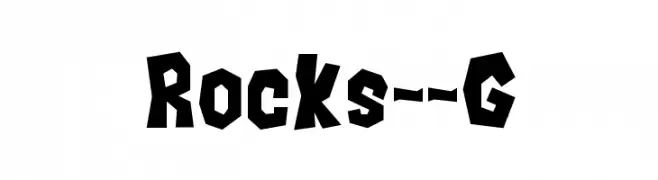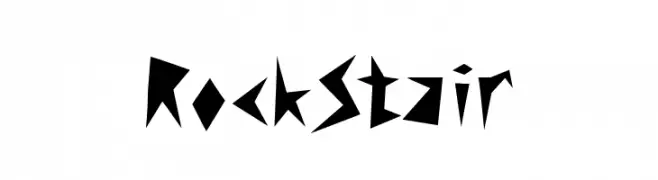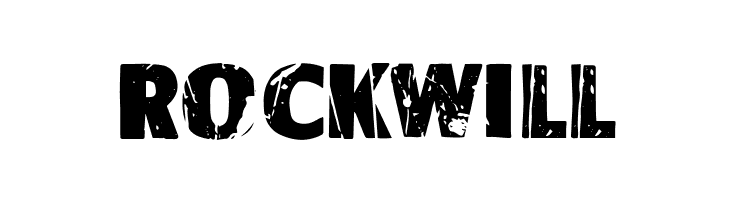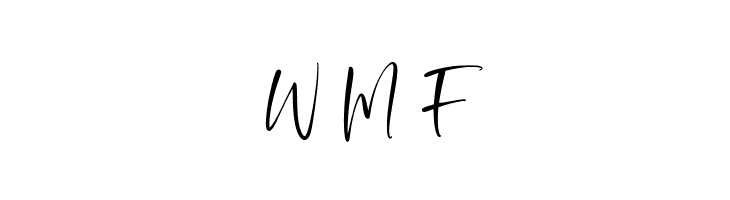
A bold, jagged font with an angular, rock-like appearance.
A bold, rugged font with jagged, rock-like edges.
A lively, handwritten font with fluid strokes and a playful, modern style.
A dynamic handwritten font with fluid strokes and a rustic texture.
A bold, dynamic script font with a handwritten style.
A bold, dynamic script font with thick, rounded strokes and tight spacing.
A lively and dynamic handwritten font with fluid, flowing letterforms.
A bold, textured font with a rugged, rock-like appearance.
A bold, angular font with sharp, jagged edges for a dynamic look.